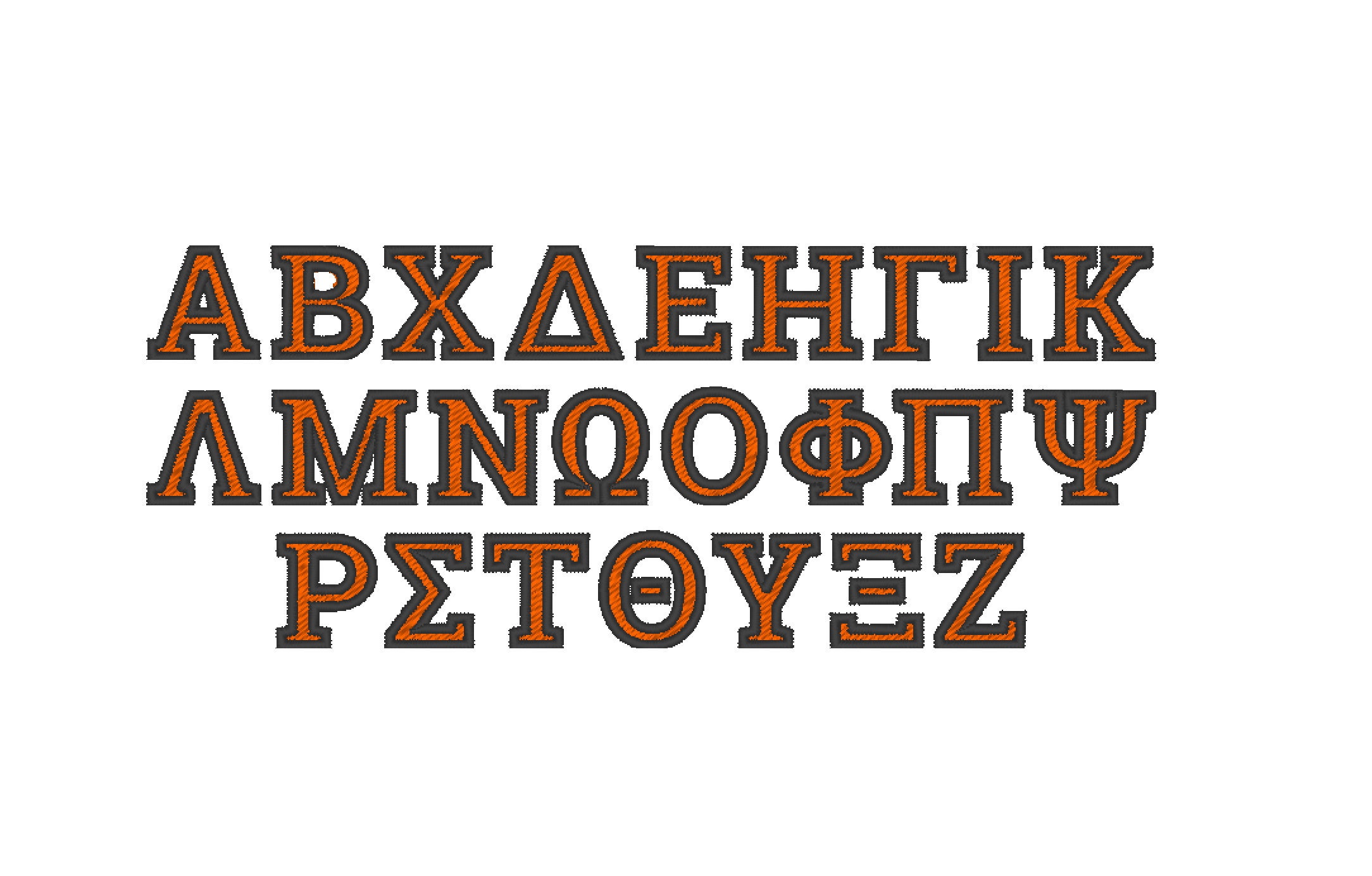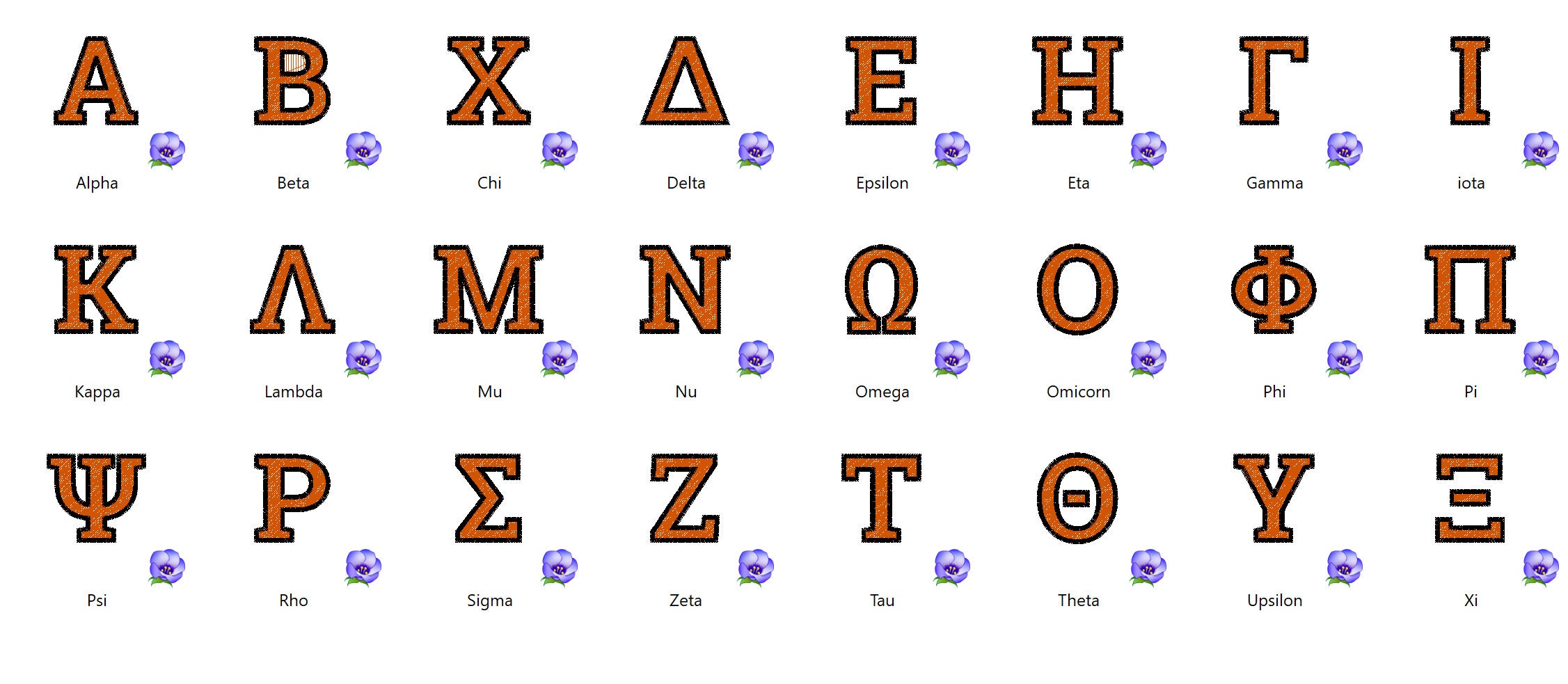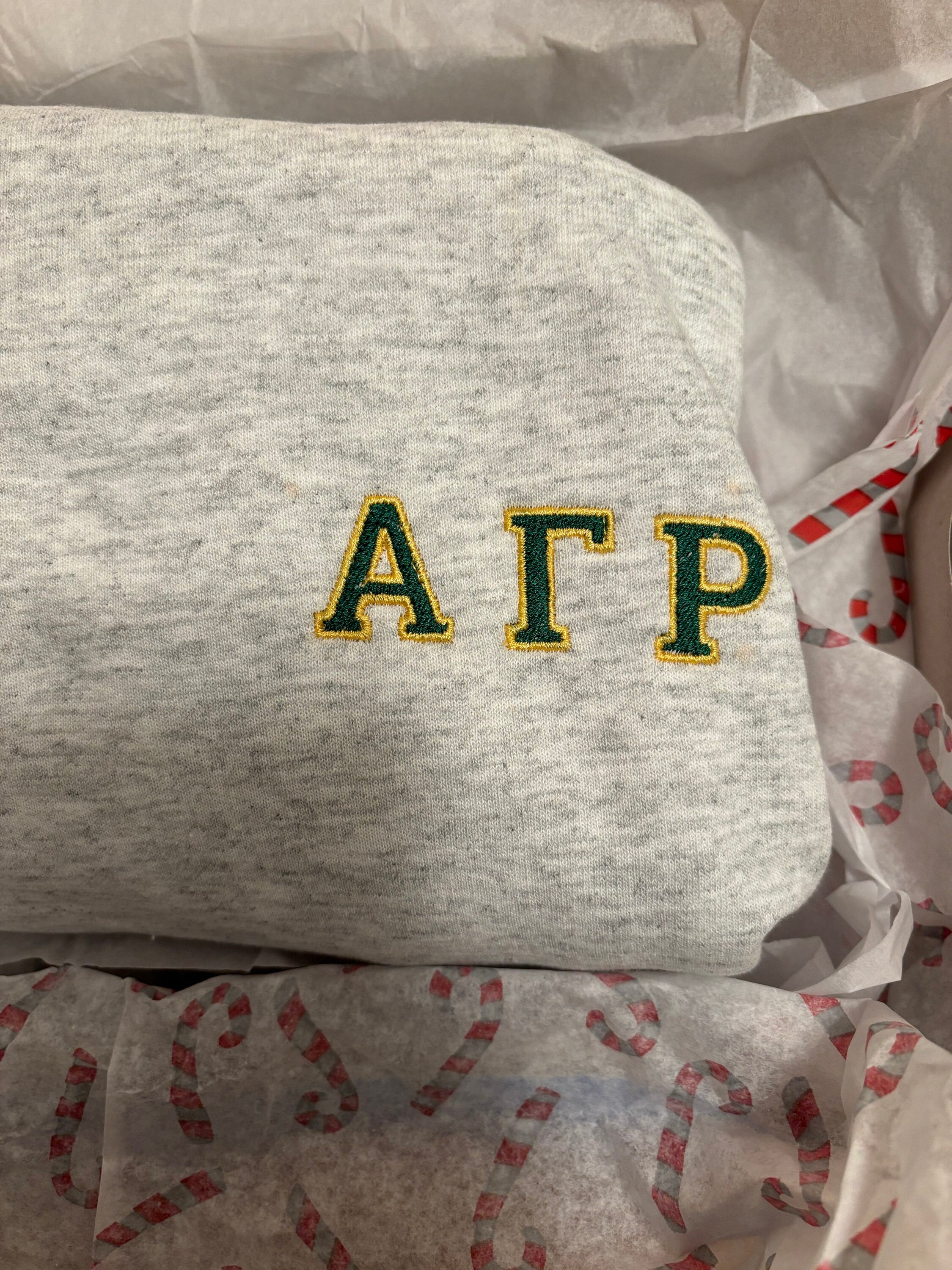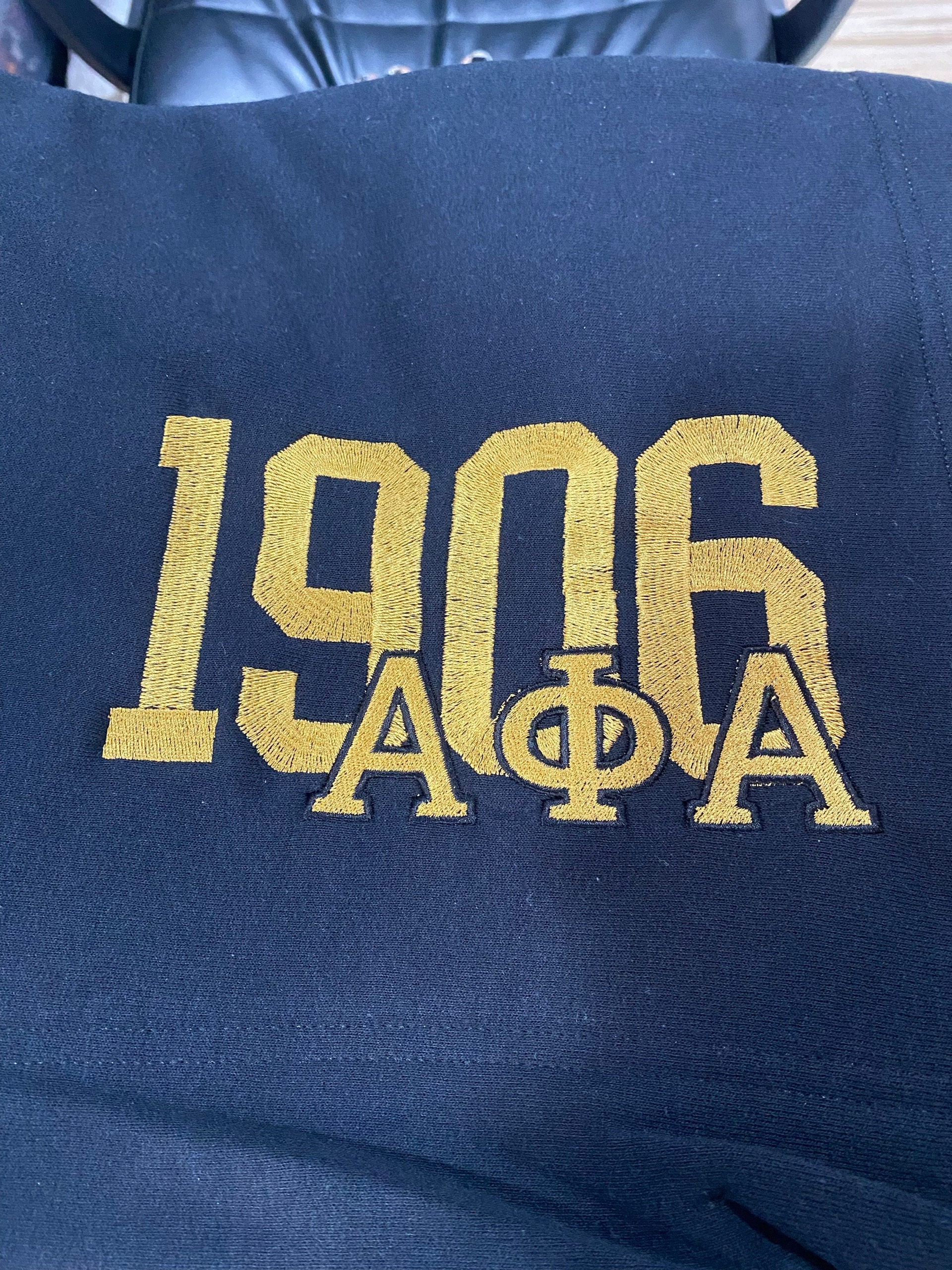
MINI fill Greek font alphabet ABC 2 colors Greek font sororities fill stitch Font outline fill stitch machine embroidery designs, BX included
Font is fill stitched and has contrast (second color) finish outline